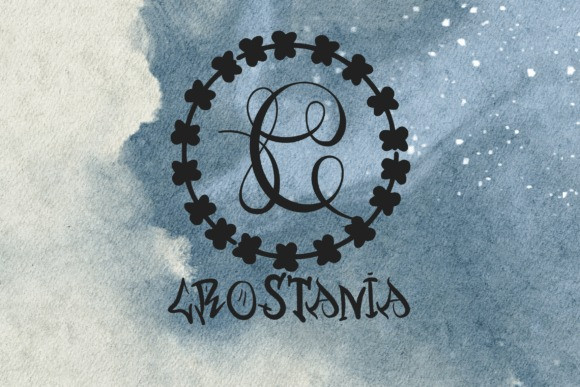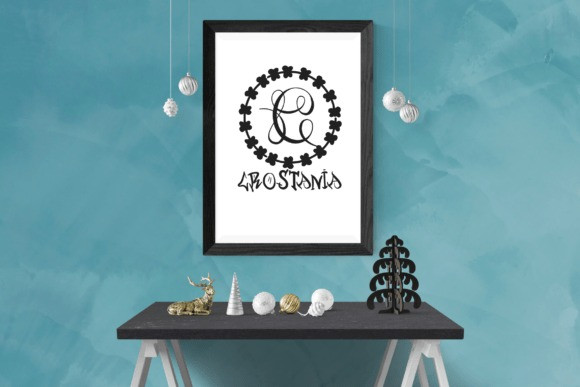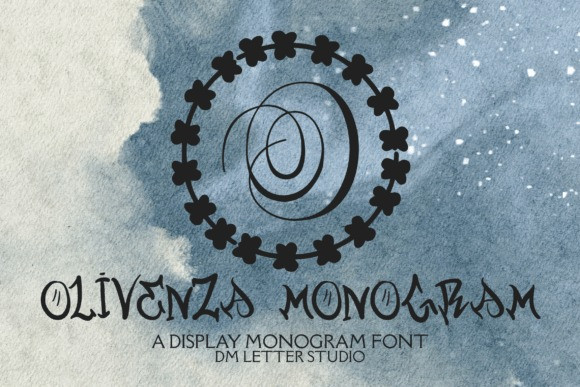
Olivenza Monogram Font
Olivenza Monogram Font turns simple initials into refined botanical emblems with a calm, upscale feel. The strokes are smooth and balanced, so letters stay clear at any size. Because counters remain open, tiny tags print crisp while large signage looks polished and gift-ready. Use it for wedding suites, boutique logos, keepsake gifts, wax seals, stationery, and luxury packaging. As a result, your designs feel elegant and personal without extra decoration.